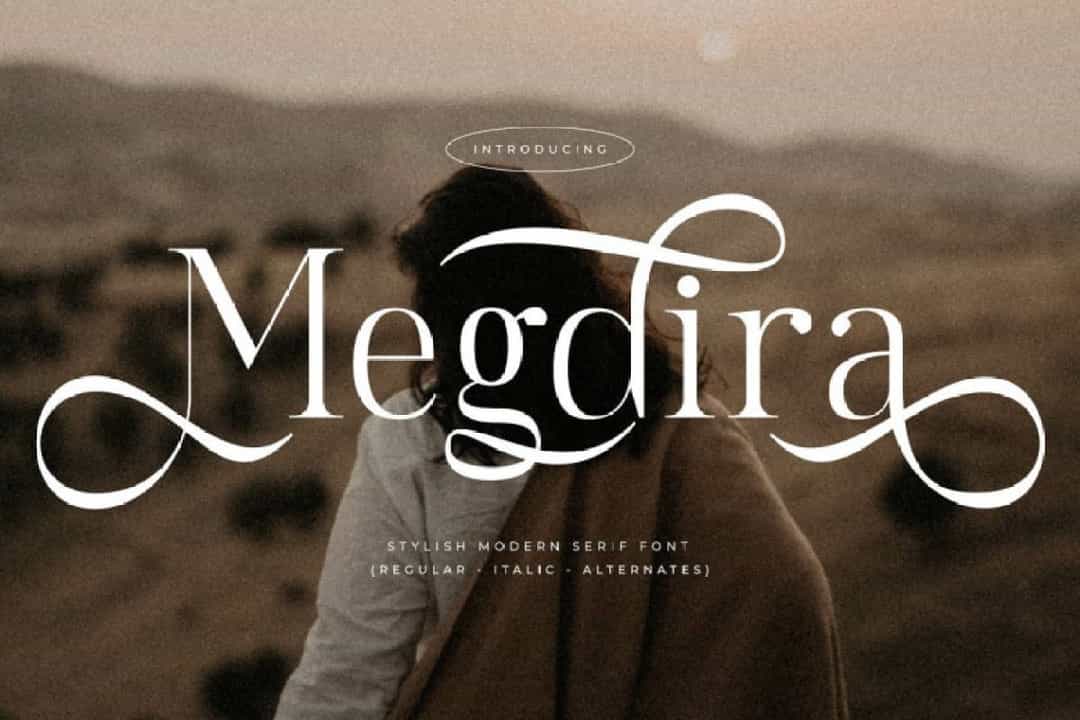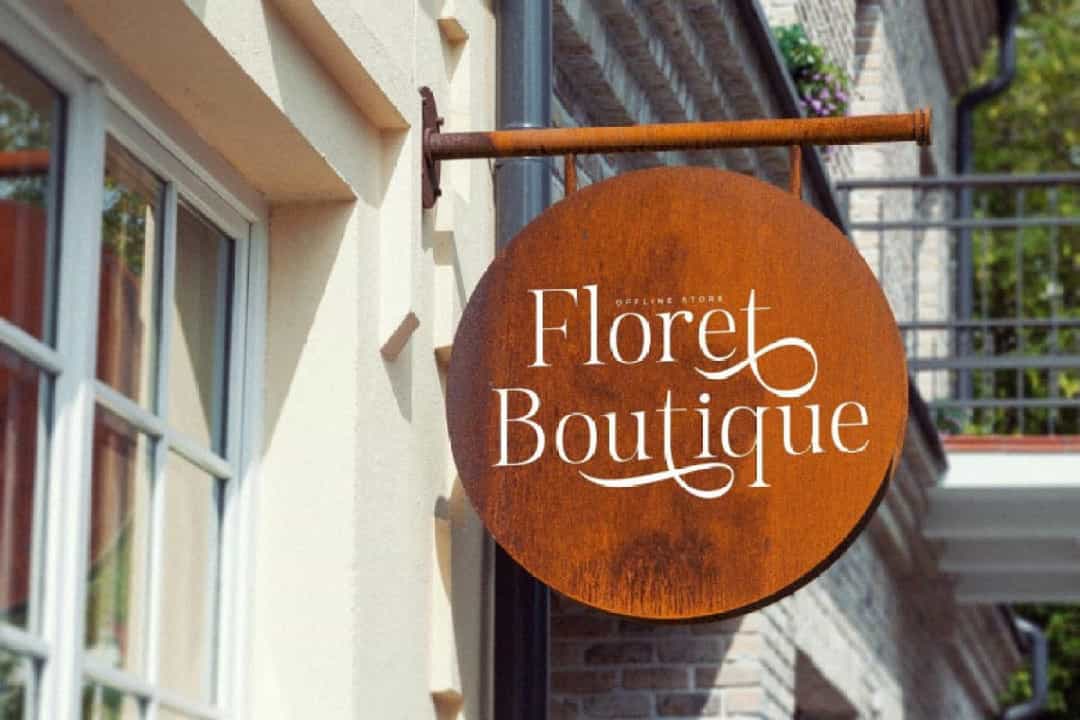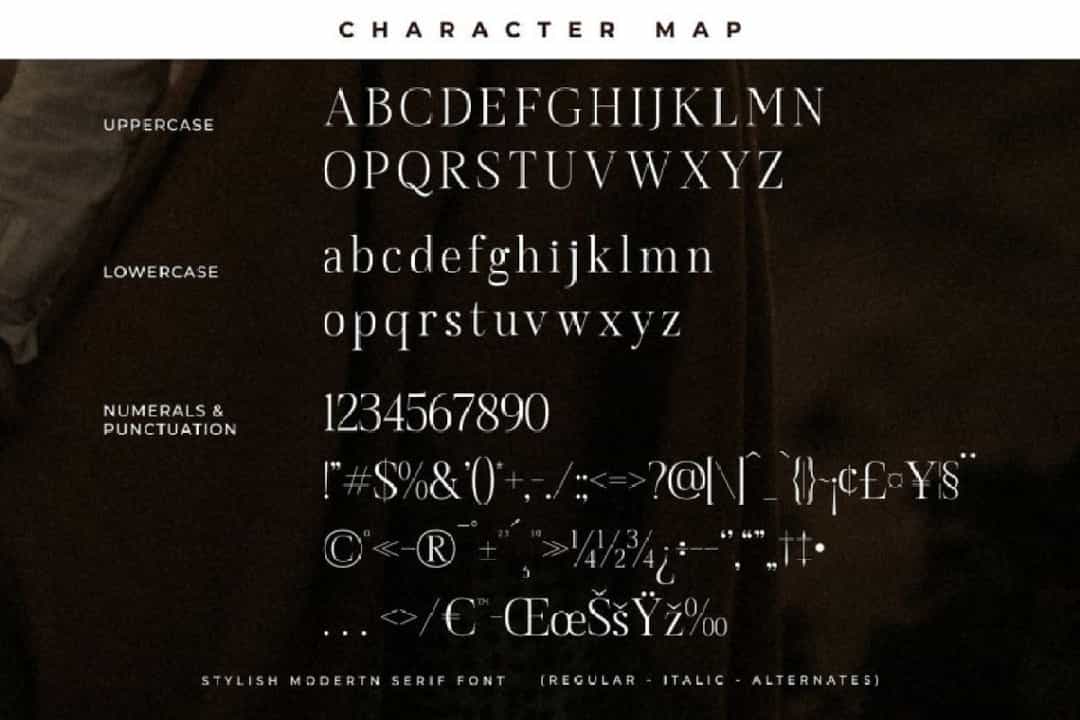
Megdira is a modern and classic serif typeface, boasting its distinct style and contemporary appearance. Perfect for creating luxurious logos, movie posters and book covers as well as clothing labels and magazine cover pages, lettering projects as well as quotes or any other special project, Megdira offers something suitable for every use imaginable.